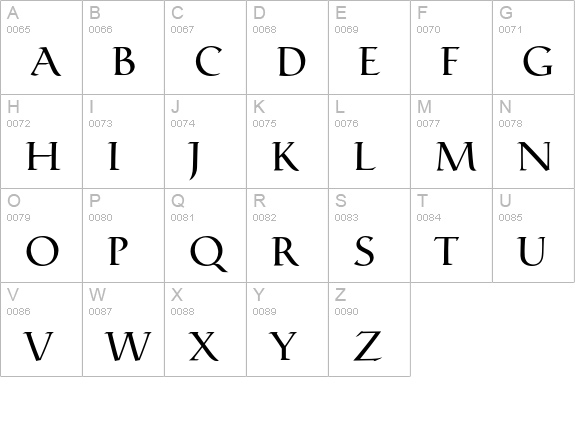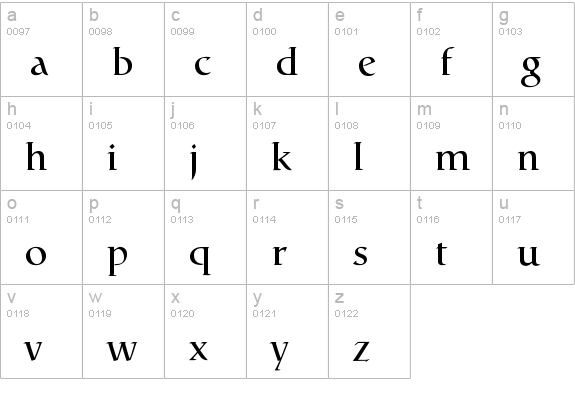
Catull BQ Regular is the standard, neutral variant in the Catull typeface family \xE2\x80\x94 well suited to general body text, paragraphs, and standard typographic work.
Catull BQ Regular is a timeless and elegant serif font that exudes sophistication and charm. With its delicate curves and classic design, this typeface is perfect for adding a touch of refinement to any project. Whether you're designing a wedding invitation, creating a logo, or crafting a beautiful poster, Catull BQ Regular is sure to impress. The best part? Catull BQ Regular is completely free to download at FontsMarket.com. You can easily access this stunning font and elevate your designs without having to worry about any extra costs. Don't miss out on this opportunity to enhance your projects with the beauty and grace of Catull BQ Regular. Download it today and let your creativity soar!